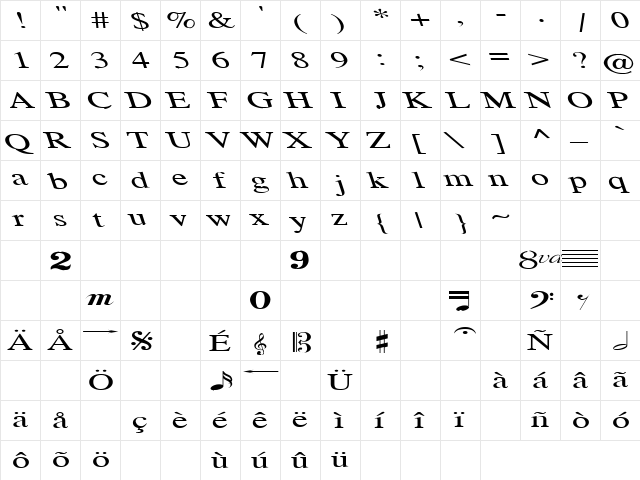
Woman Of The World 9 Regular
Design Context for Woman Of The World 9 Typeface
Woman Of The World 9 takes a measured approach to typography — its balanced proportions and neutral character make it a reliable workhorse for both digital and print work.